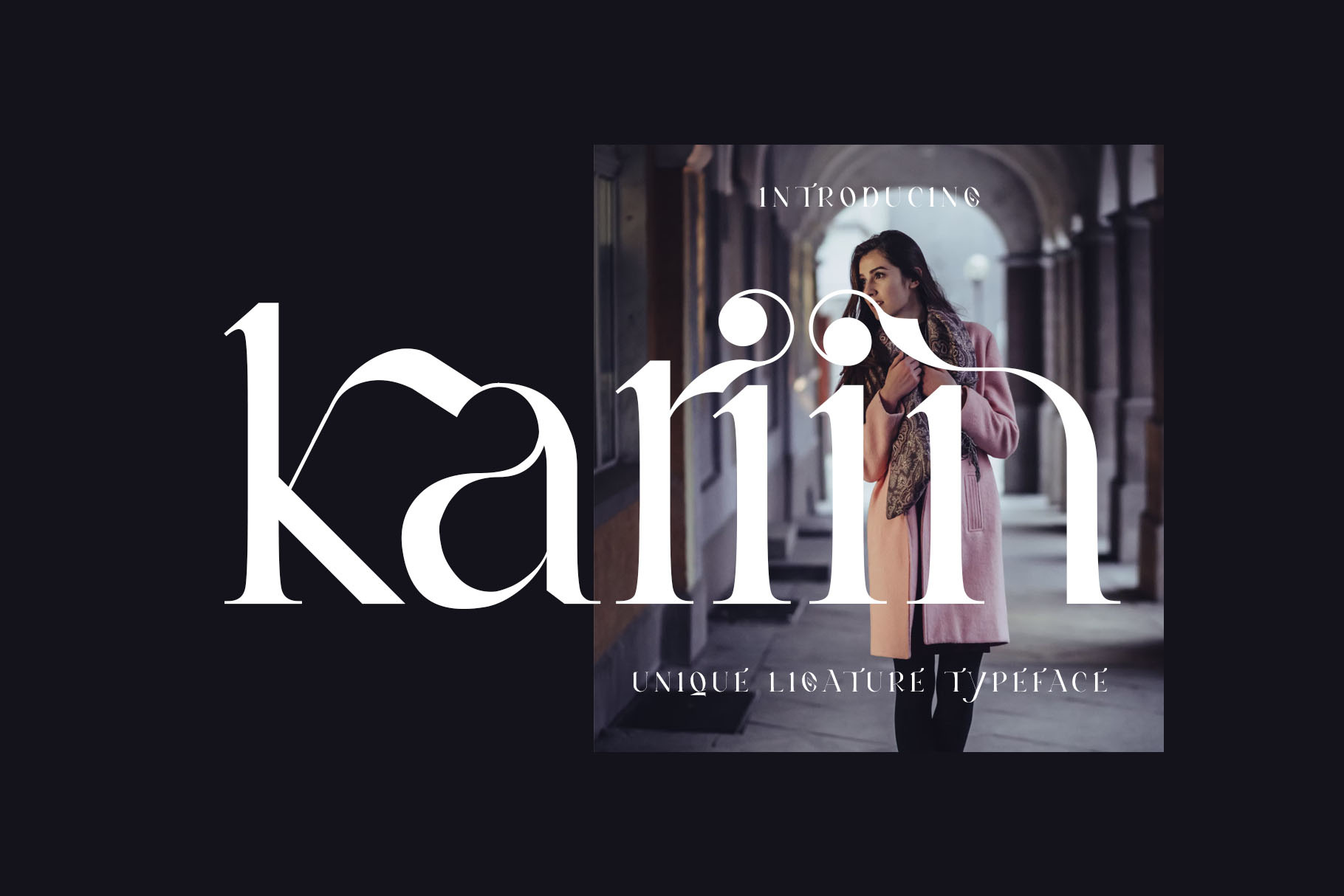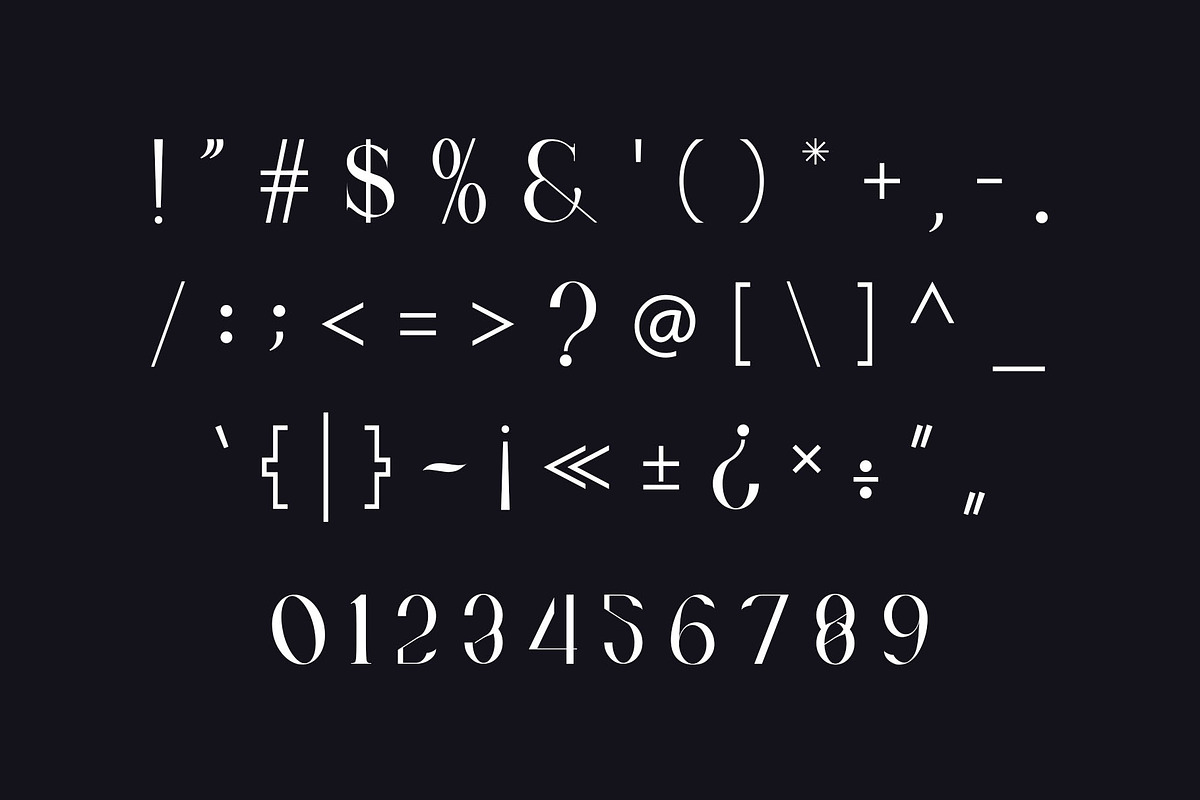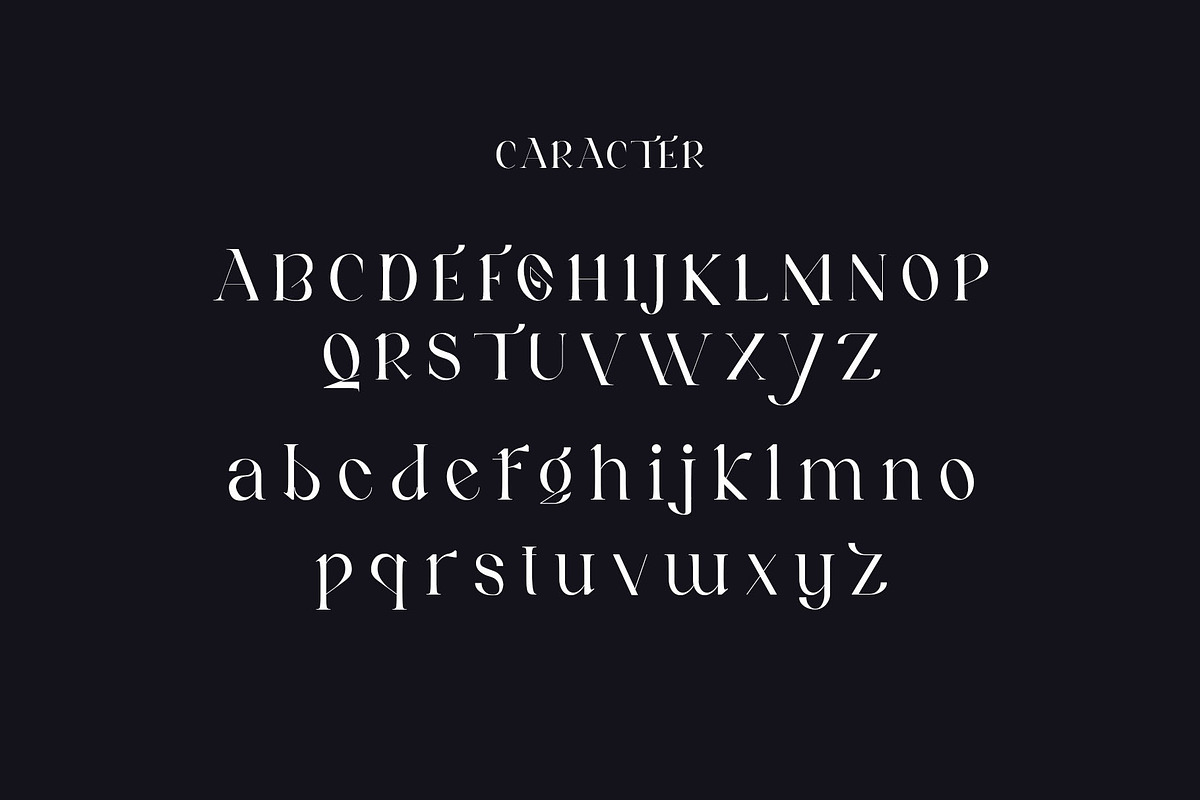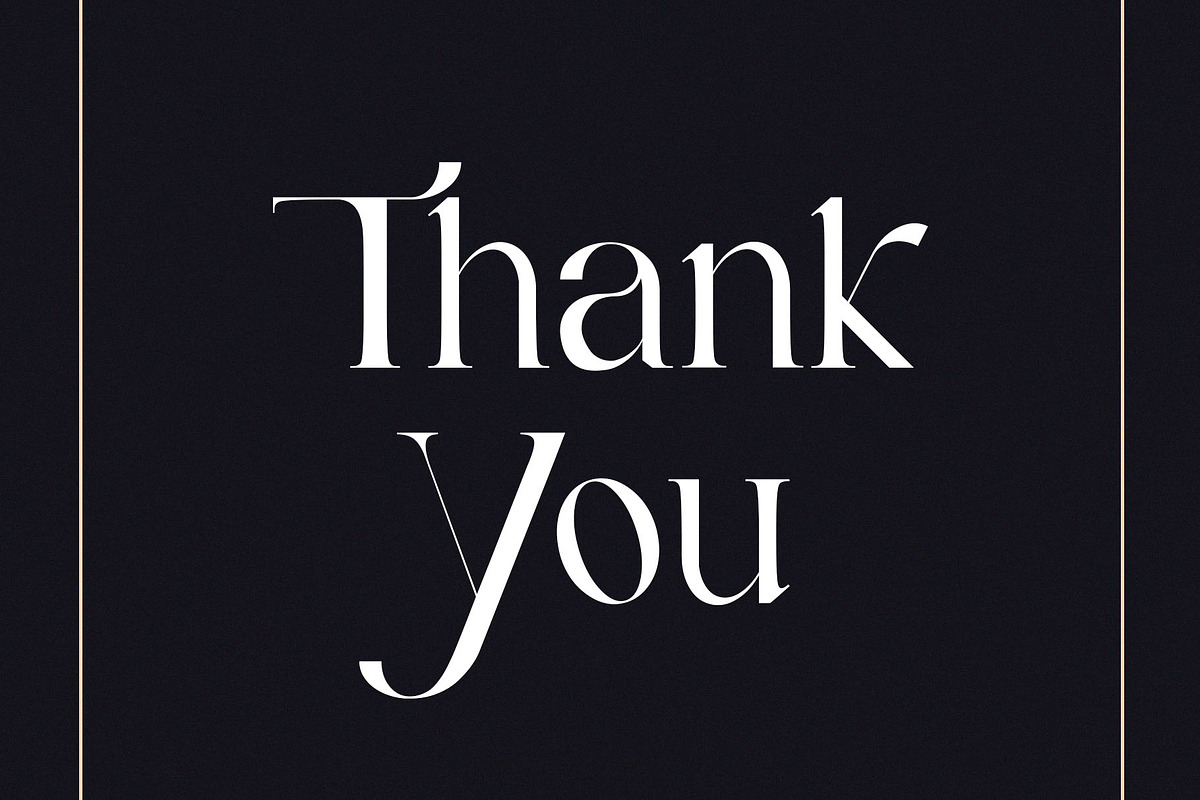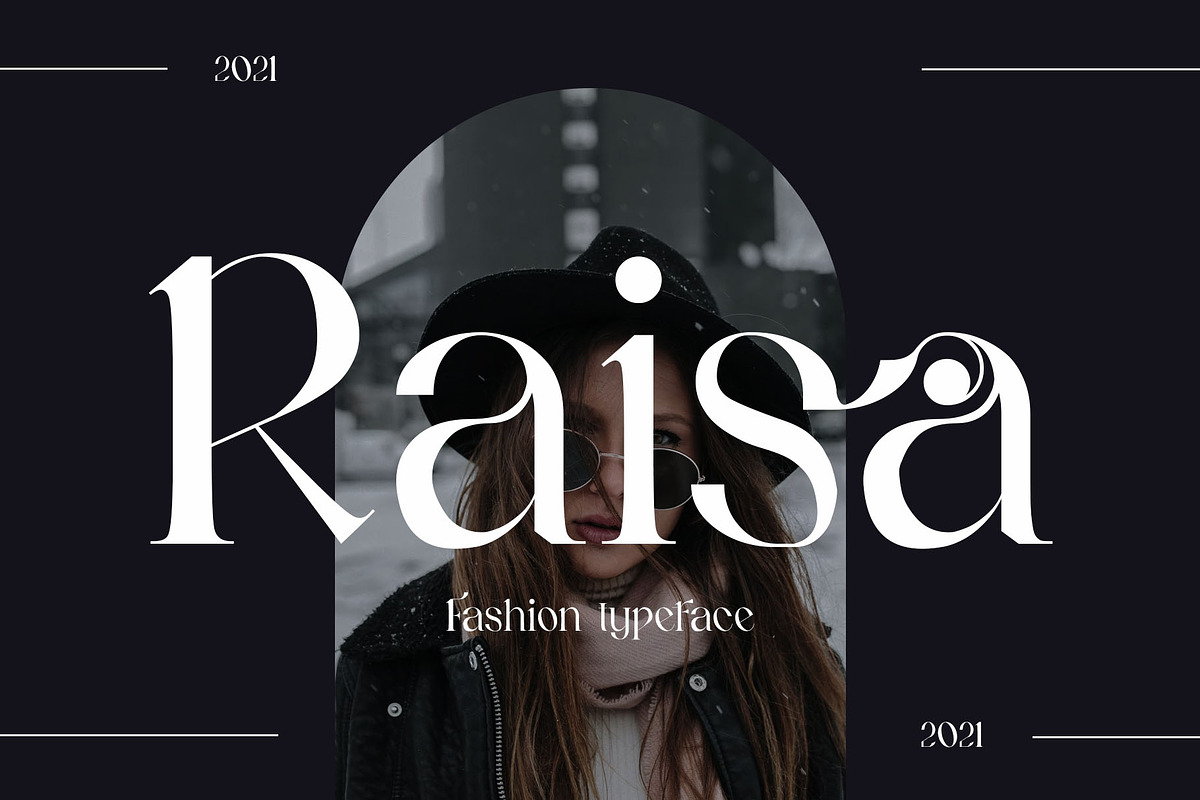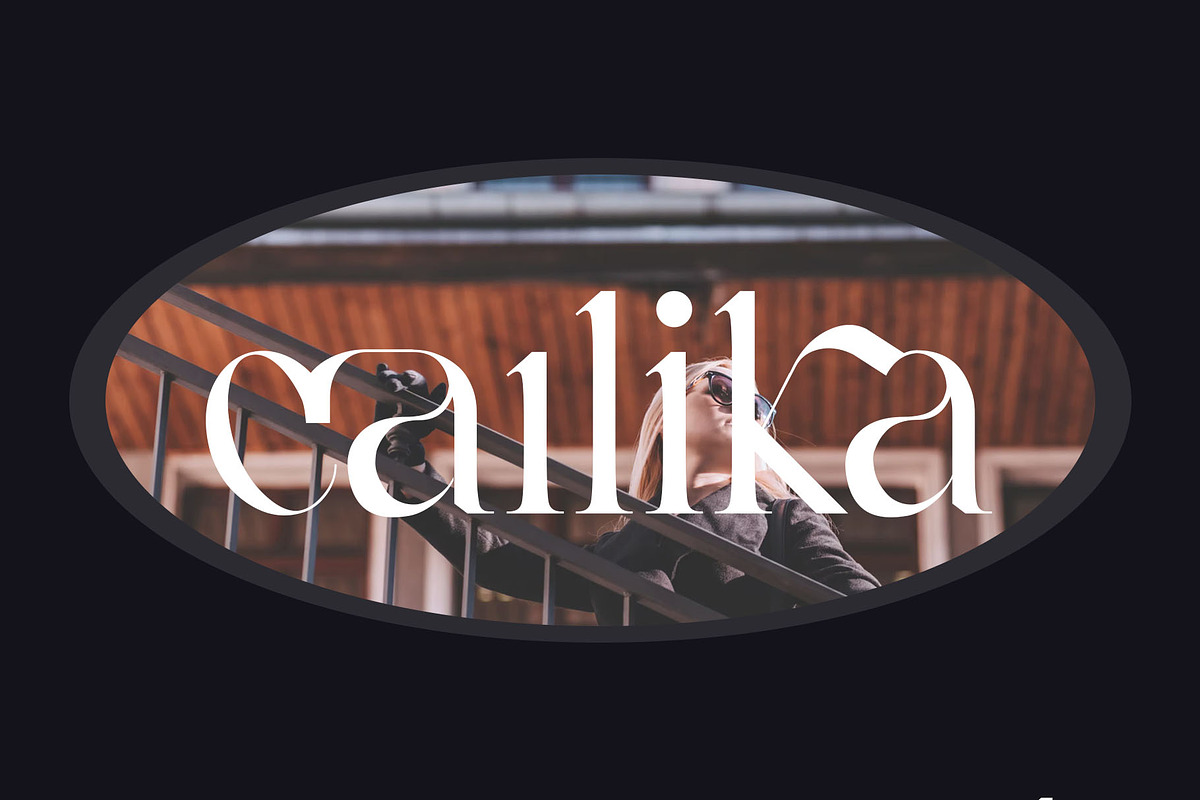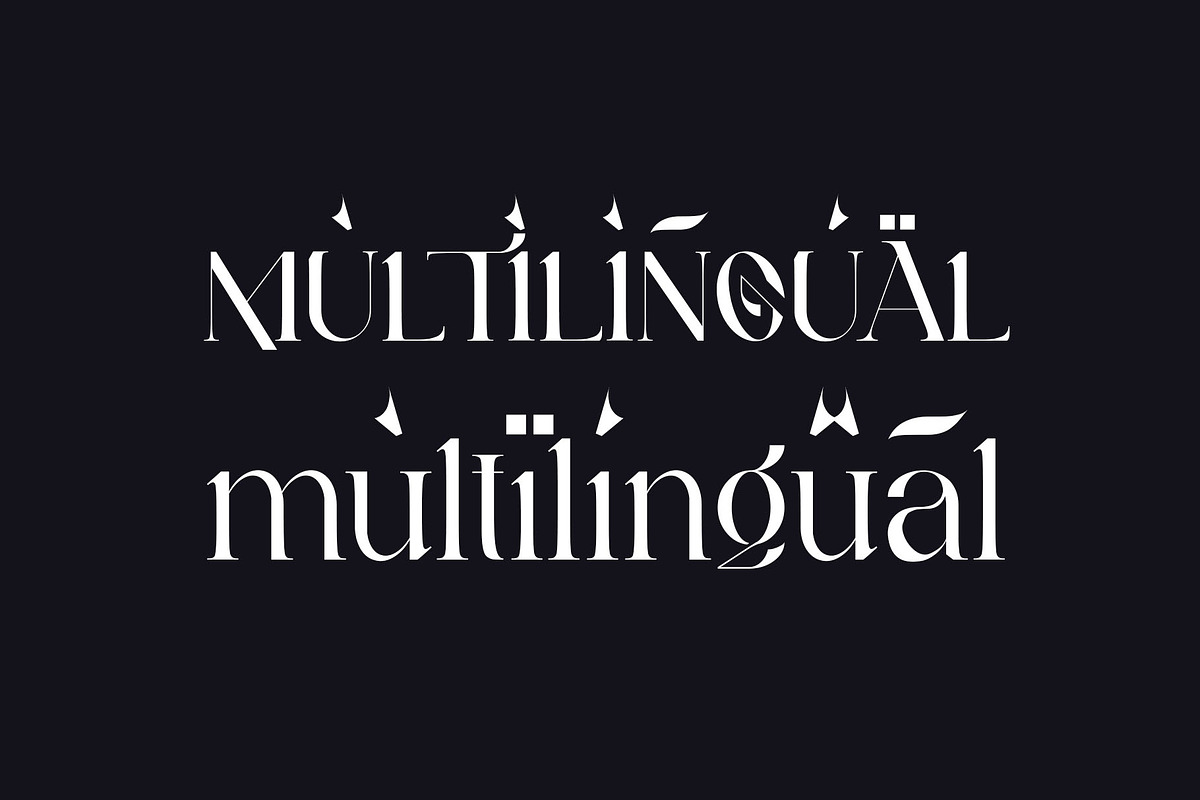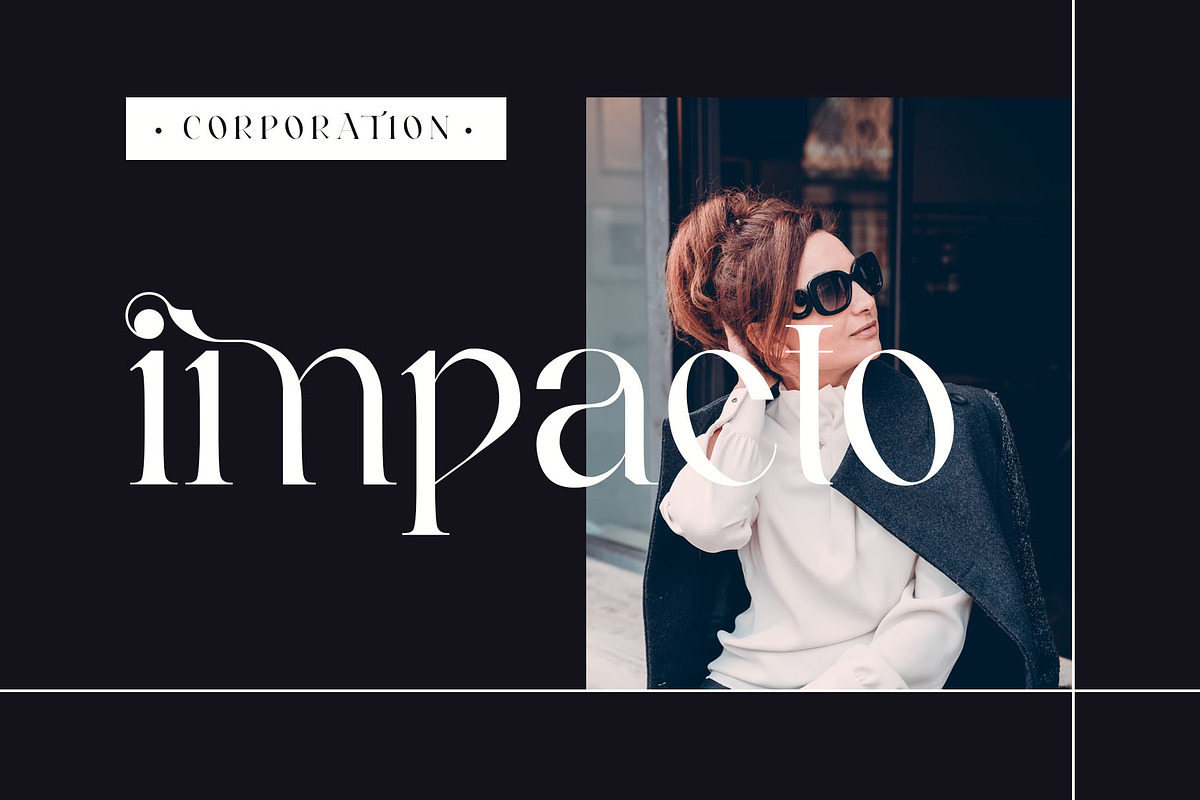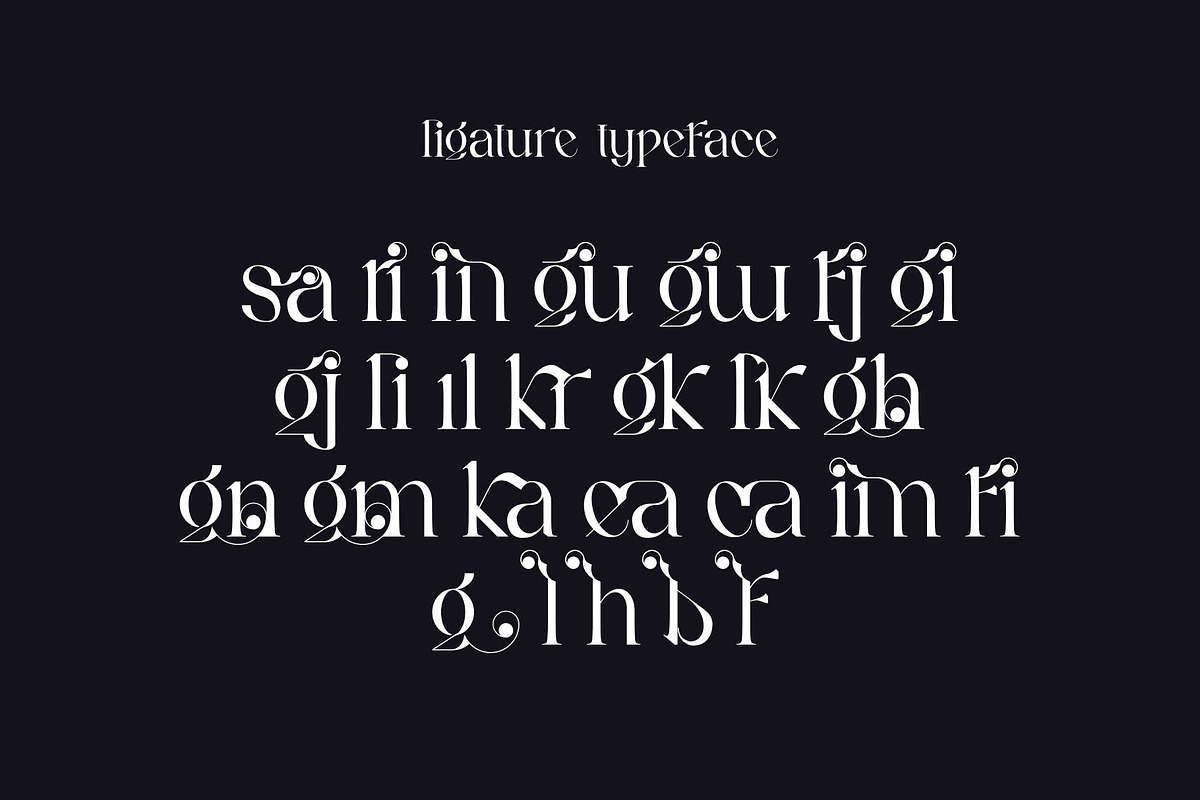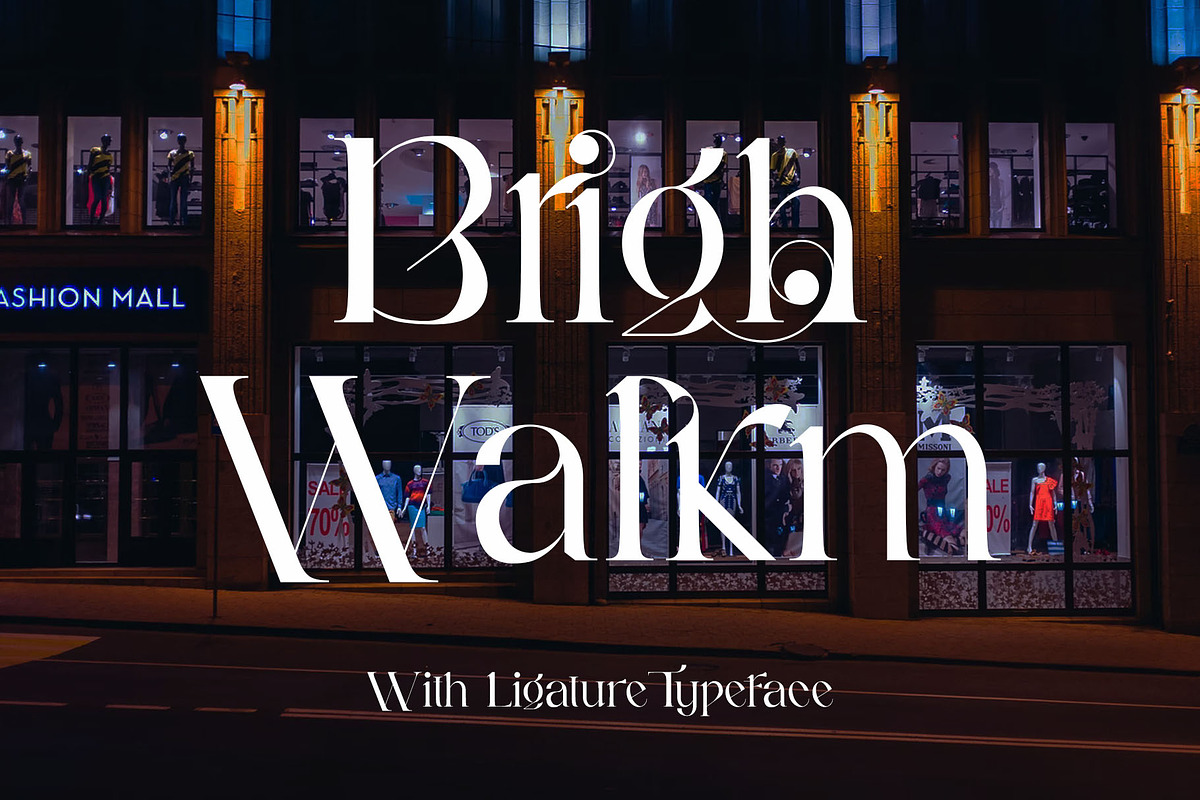
Kariin Ligature Serif Typeface
Kariin is a elegant and classy serif typeface – This font is both modern and nostalgic and works great for logos, magazine, social media. Already matched up and ready to be used together for your next design! For those of you who are needing a touch of elegant, stylish, classy, chic and modernity for your designs, this font was created for you!
Kariin was built with OpenType features and includes ligatures, numbers, punctuation, and it also supports other languages.